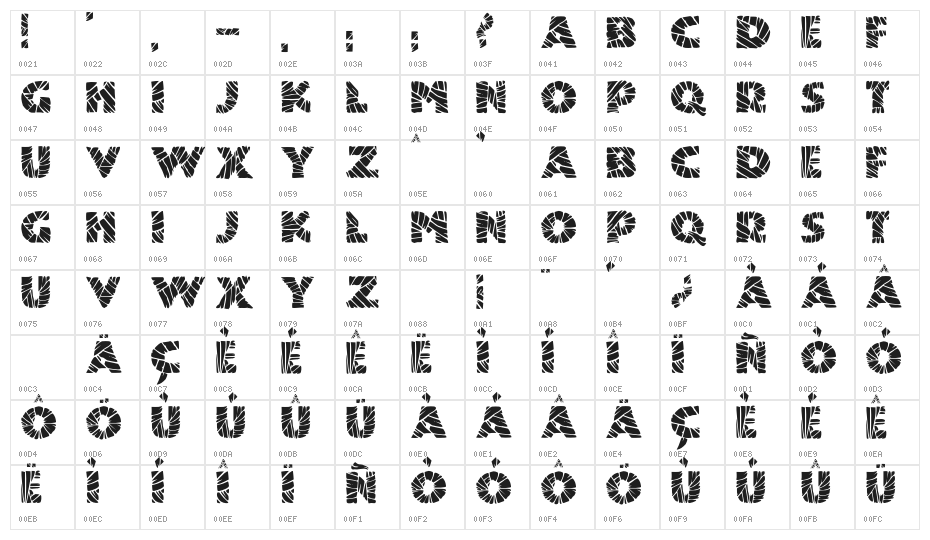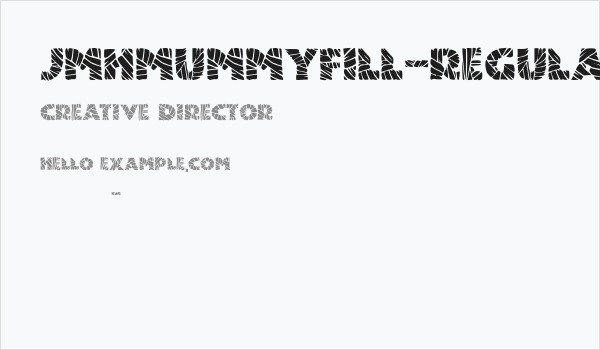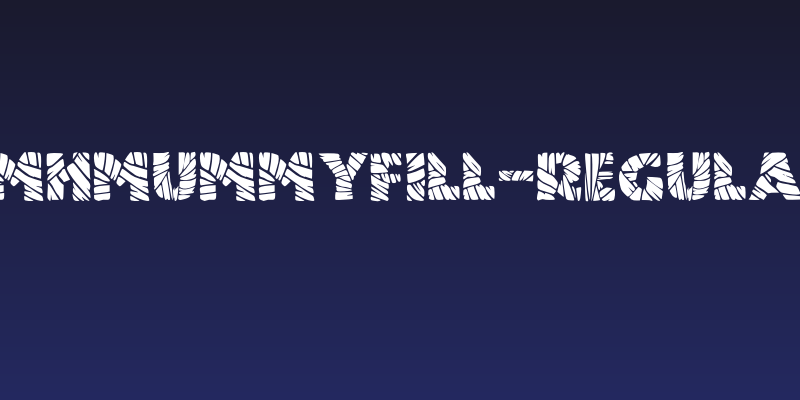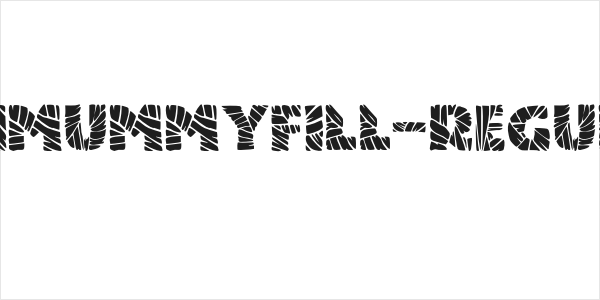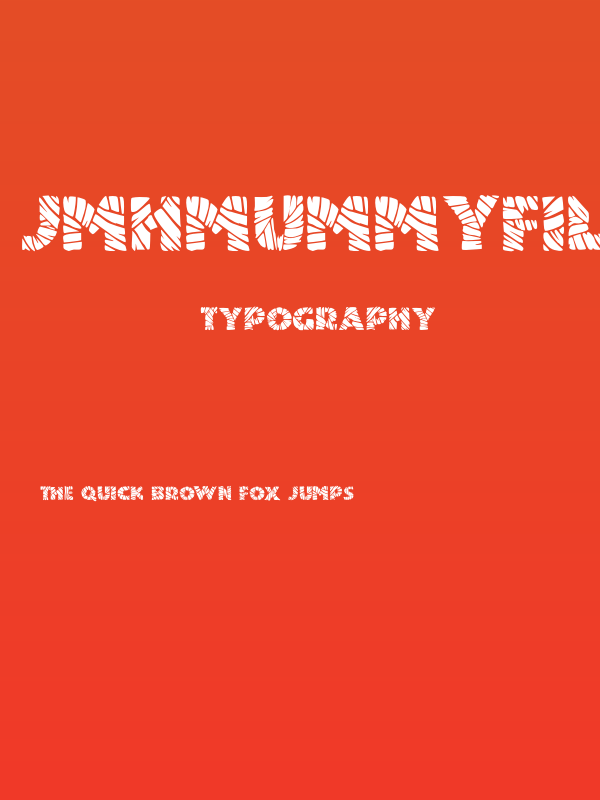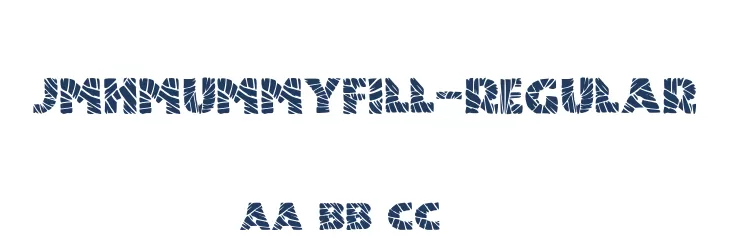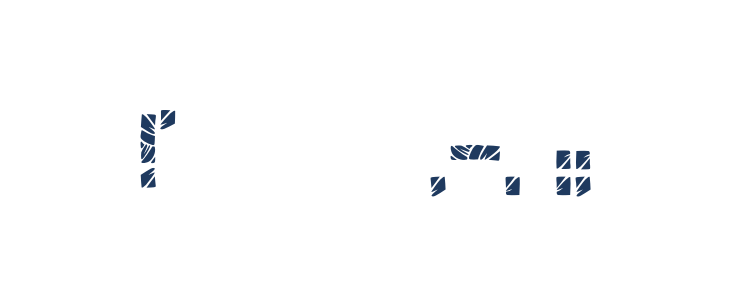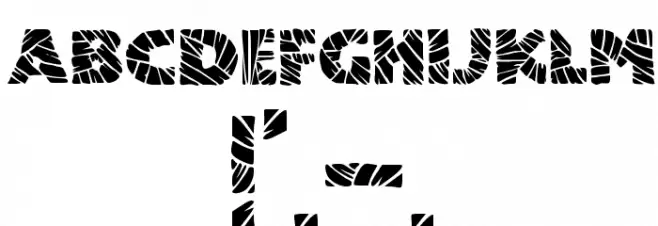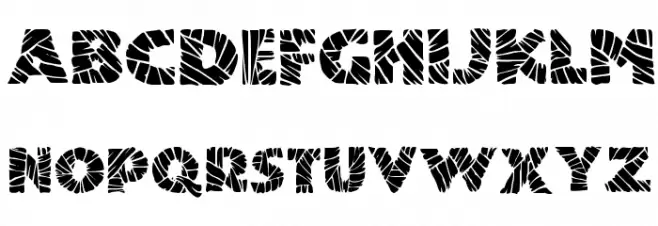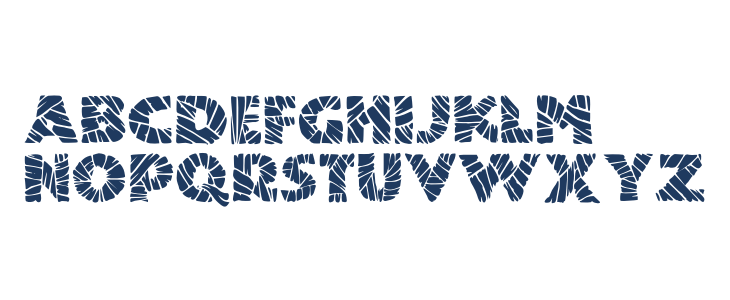
JMHMummyFill-Regular Font
JMHMummyFill-Regular Description
This font features a bold, decorative style with a unique pattern resembling mummy wrappings. Each character is filled with intricate, irregular lines that create a textured appearance, making it stand out as a display font. The uppercase letters are particularly striking, with a consistent design that maintains readability despite the complex internal patterns. The font's playful and thematic design makes it ideal for Halloween-themed projects or any creative work that requires a spooky or mysterious aesthetic. The characters are evenly spaced, ensuring clarity and balance across different text lengths.
| Proposed Projects | Ideal for Halloween invitations, themed posters, spooky event flyers, and creative branding projects. |